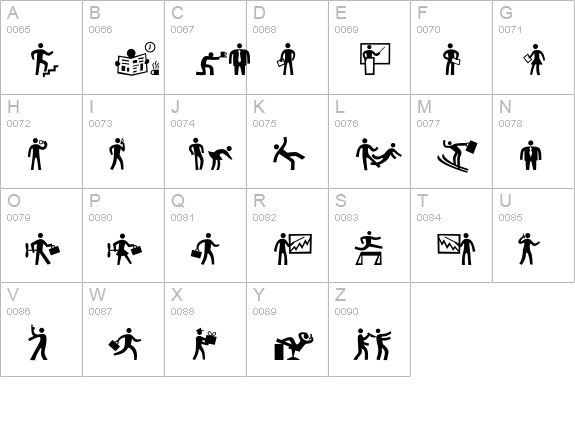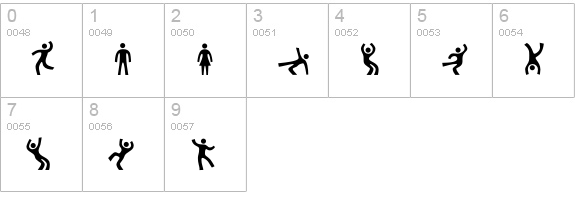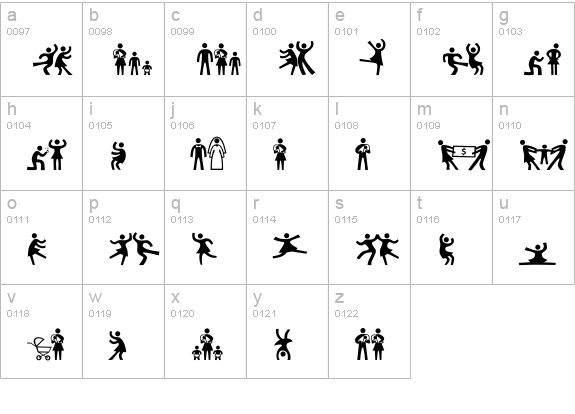
PedestriaMVB-PictOne is a visually striking font that effortlessly combines the charm of hand-drawn illustrations with the elegance of typography. This unique font is perfect for adding a touch of creativity and personality to any design project. With its intricate details and captivating characters, PedestriaMVB-PictOne offers a wide range of pictograms and symbols that can be used to enhance your designs. Whether you are creating a logo, signage, or promotional materials, this font will surely make your work stand out. One of the best features of PedestriaMVB-PictOne is that it is freely available to download at FontsMarket.com. This means that you can easily access and use this incredible font without any hassle or cost. It's a fantastic opportunity to add a touch of creativity and uniqueness to your projects without breaking the bank. This font is not only visually appealing but also highly versatile. It can be used in a variety of design applications, from print to digital media. Its versatility makes it suitable for various industries, including advertising, branding, fashion, and more. Whether you are a professional designer or a hobbyist, PedestriaMVB-PictOne will surely become your go-to font for all your creative endeavors. So don't miss out on the opportunity to elevate your designs and download this amazing font for free at FontsMarket.com.